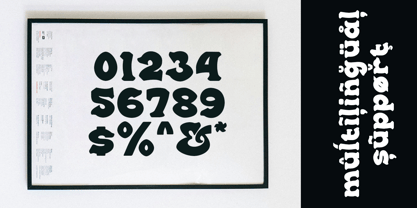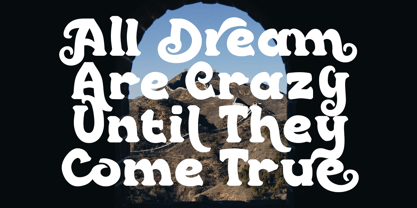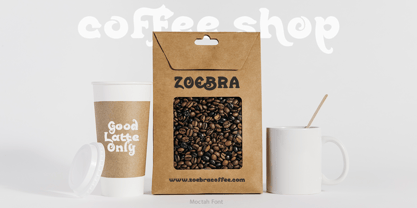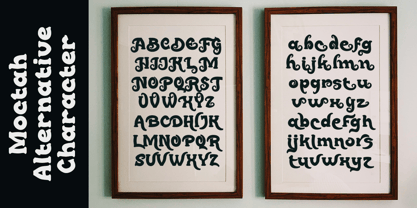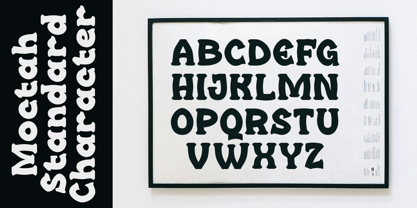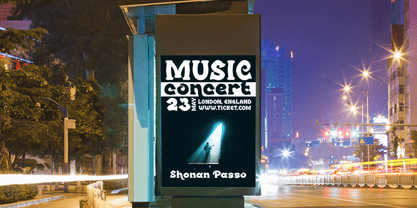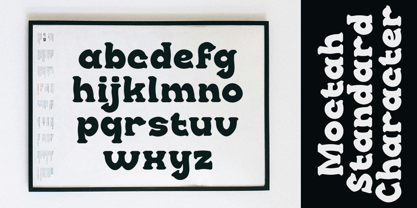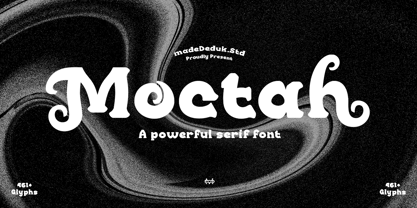
Moctah
by madeDeduk
The Moctah Font Family was designed by madededuk and published by madeDeduk. Moctah contains 2 styles and family package options.
Moctah is a bold serif font come with 90's retro style. You can explore and combine creating rhythm for comfortable reading. Vintage and refined use this font for any branding, product packaging, invitation, quotes, headline, label, poster, logo etc.
Designers: madededuk
Publisher: madeDeduk
Foundry: madeDeduk